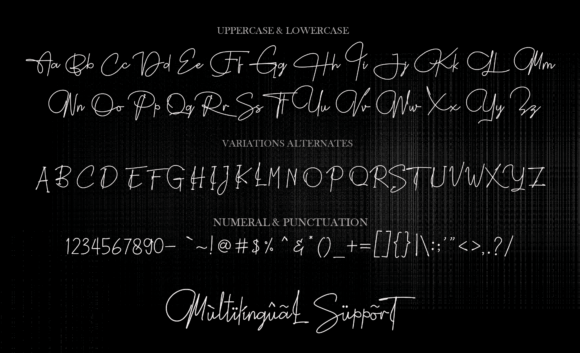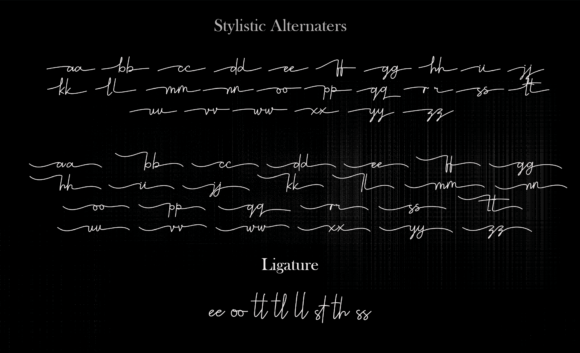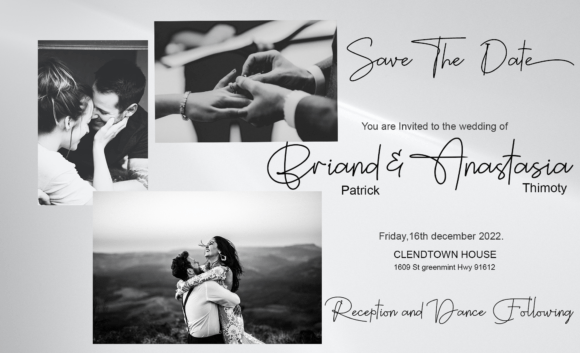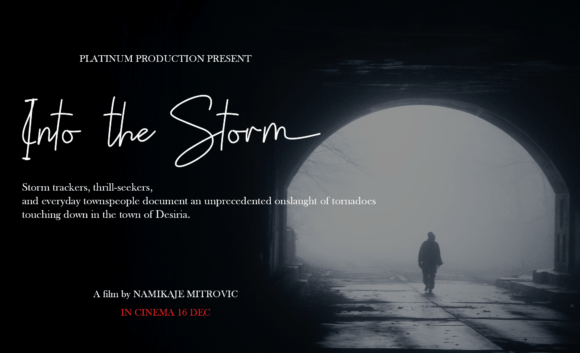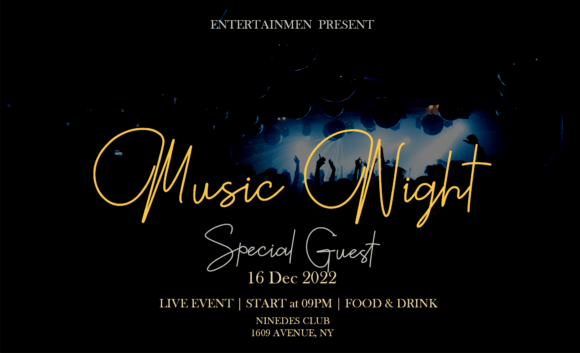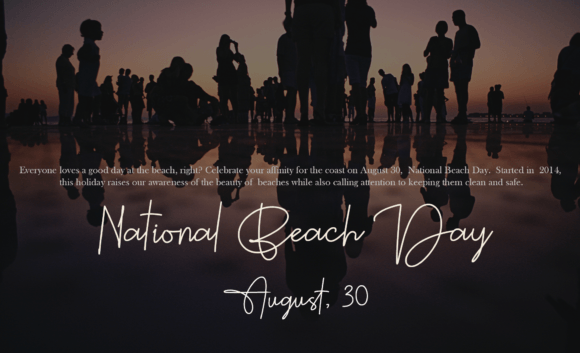
Asteria Signature Font: Elevate Your Creativity with a Romantic Touch
In the world of typography, a well-crafted font can make all the difference in bringing your creative ideas to life. Introducing Asteria Signature, an authentic handwritten font that exudes a romantic touch, perfect for designers and crafters looking to add a personal and elegant flair to their projects. In this article, we’ll dive into the features and benefits of Asteria Signature, and explore how this beautiful font can elevate your designs to new heights.
The Charm of Asteria Signature
Asteria Signature is a masterfully designed font that boasts a unique, handwritten charm. With its flowing lines and delicate curves, this font is sure to capture the hearts of designers and crafters alike. Whether you’re working on a wedding invitation, a branding project, or a digital product, Asteria Signature is the perfect choice for adding a touch of romance and sophistication.
Asteria Signature Font
One of the standout features of Asteria Signature is its PUA (Private Use Area) encoding. This means that you can access all the glyphs and ligatures with ease, giving you complete creative control over your designs. With PUA encoding, you can effortlessly navigate the font’s extensive character set, including alternate letters, numbers, and punctuation marks.
Asteria Signature is more than just a font – it’s a tool for unlocking your creative potential. With its versatility and charm, this font can be used in a wide range of projects, from:
• Branding and packaging design
• Digital products, such as ebooks and courses
• Signage and display graphics
• Social media graphics and quotes
Why Choose Asteria Signature?
So, what sets Asteria Signature apart from other fonts on the market? Here are just a few reasons why designers and crafters are falling in love with this beautiful font:
• Unique and authentic design: Asteria Signature boasts a one-of-a-kind, handwritten design that’s sure to make your projects stand out.
• Romantic and elegant feel: This font’s romantic touch makes it perfect for projects that require a touch of sophistication and whimsy.
• PUA encoded for easy access: With PUA encoding, you can easily access all the glyphs and ligatures, making it simple to create stunning designs.
• Extensive character set: Asteria Signature includes a wide range of characters, including alternate letters, numbers, and punctuation marks.
In conclusion, Asteria Signature is a beautiful, authentic handwritten font that’s perfect for designers and crafters looking to add a touch of romance and sophistication to their projects. With its PUA encoding, extensive character set, and unique design, this font is sure to unlock your creative potential and take your designs to new heights. So why not give Asteria Signature a try today and see the difference it can make in your work?